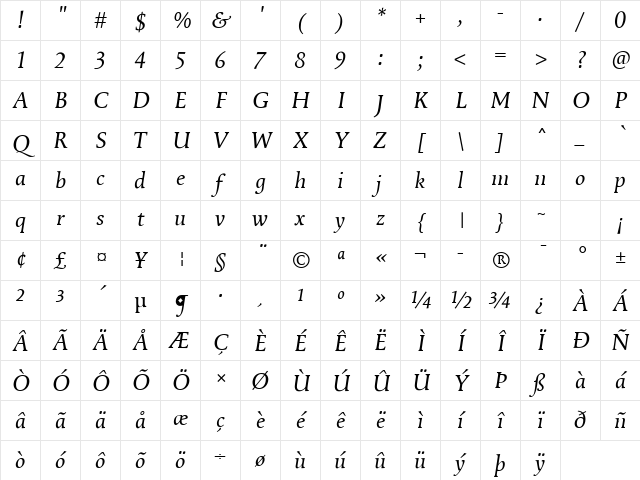
Apolline Italic
Foundry: Copr. Jean-Fran ois Porchez, Agfa Division of Miles Inc
Design Context for Apolline
Apolline is a composed and adaptable typeface that performs quietly and consistently across a wide range of design contexts. The slanted form adds forward momentum and visual energy.
Who designed the Apolline Italic font?
This font was published by Copr. Jean-Fran ois Porchez, Agfa Division of Miles Inc. Check the technical specs section for copyright and designer details.